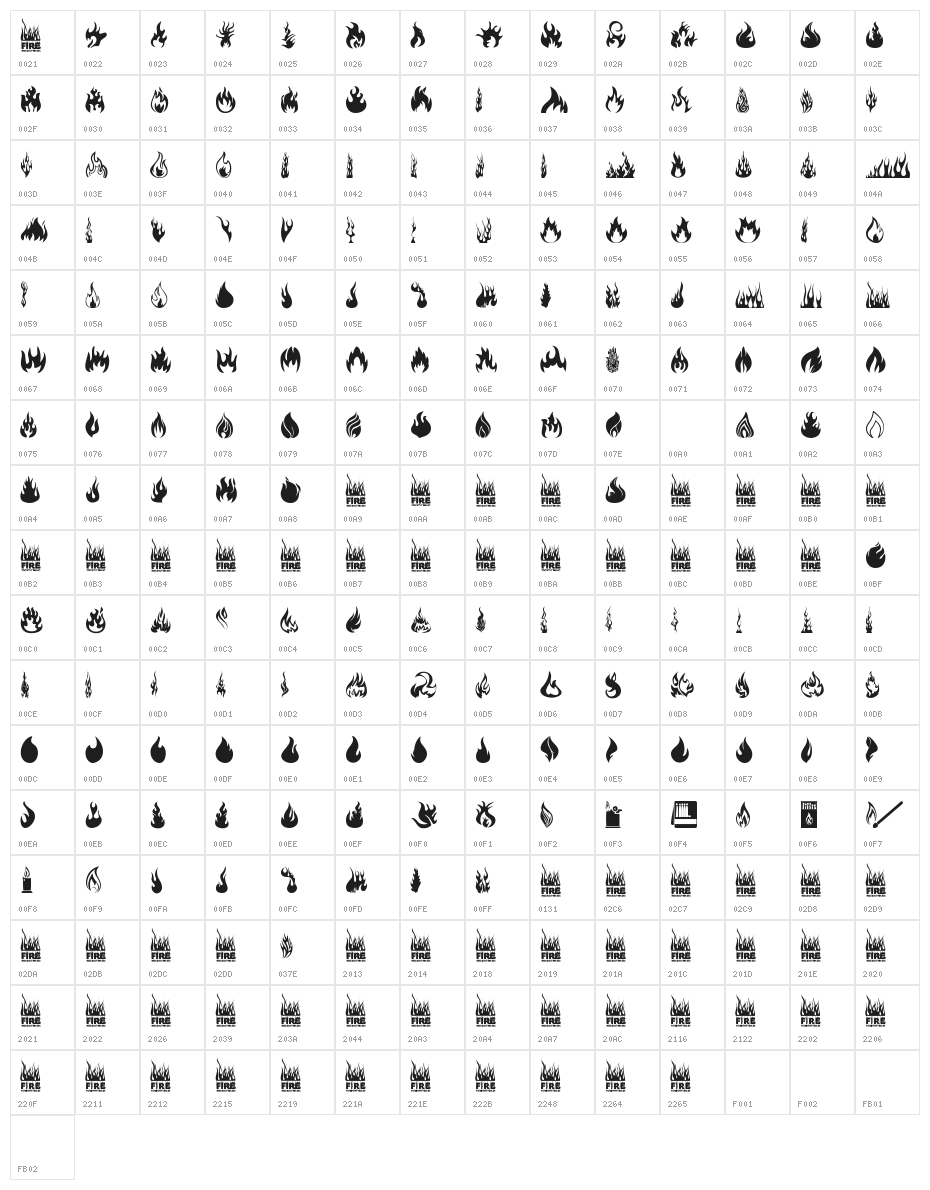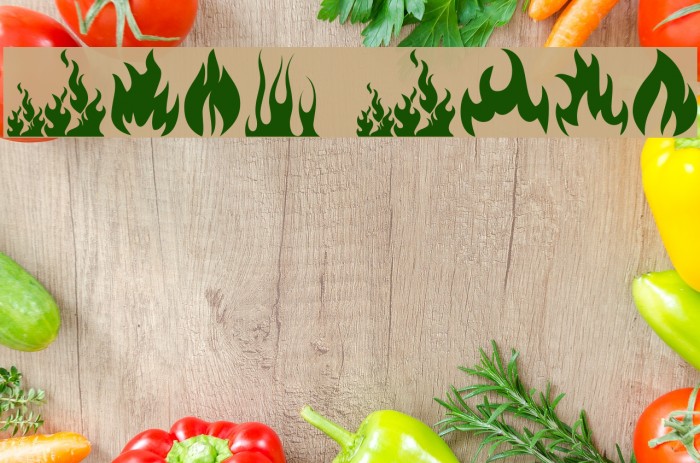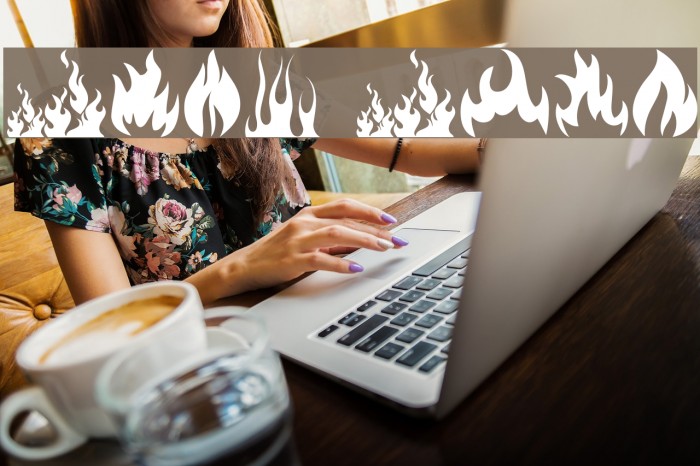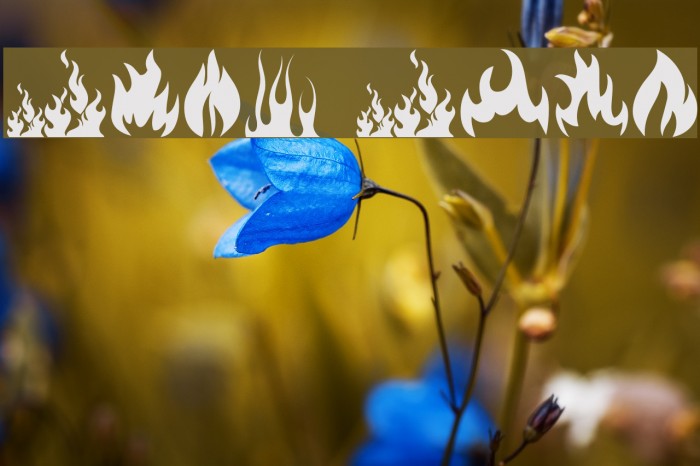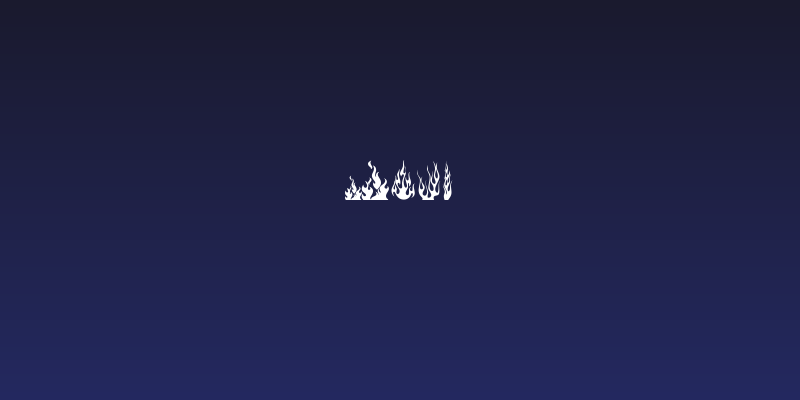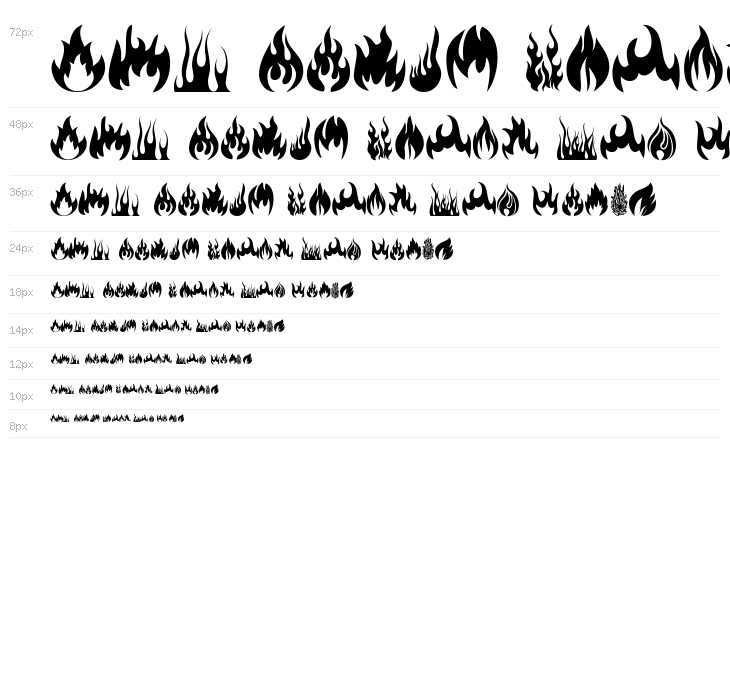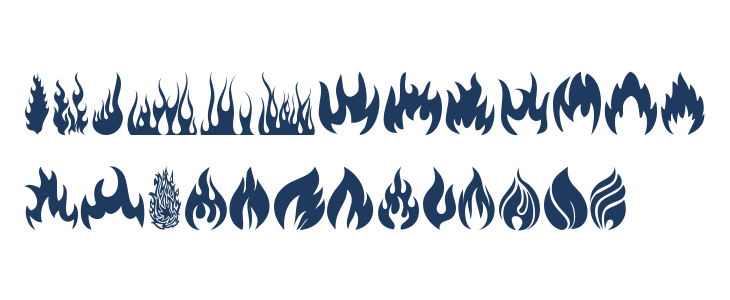
Fire Font
Fire Description
This image contains a collection of black flame and fire-themed vector illustrations, each with unique shapes and stylizations. The designs range from sharp, spiky flames to rounded, stylized fire icons, suitable for graphic embellishments or thematic artwork.
| Overall Style | Decorative, Thematic, Graphic |
| Use Case | Logos, Posters, Decorative elements, Themed graphics |
| Proposed Projects | T-shirt graphics, logo design, tattoo art, posters, stickers, digital illustrations, themed branding. |